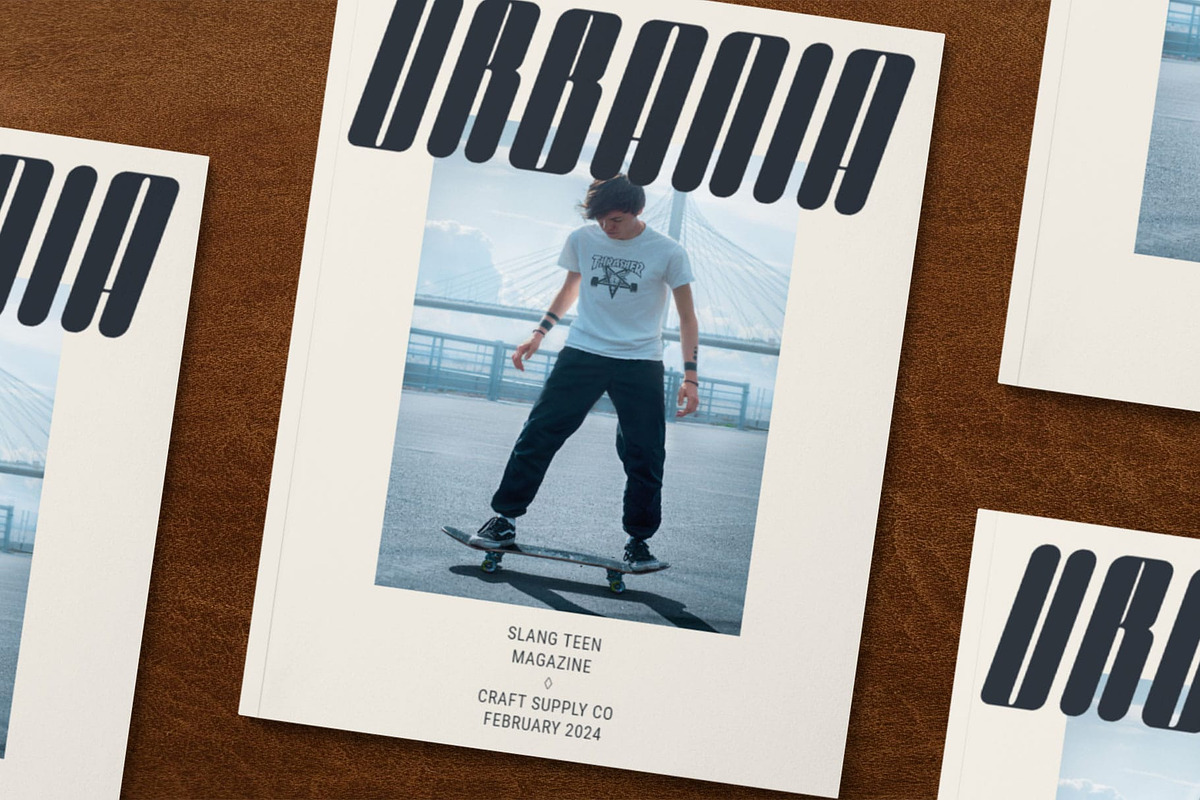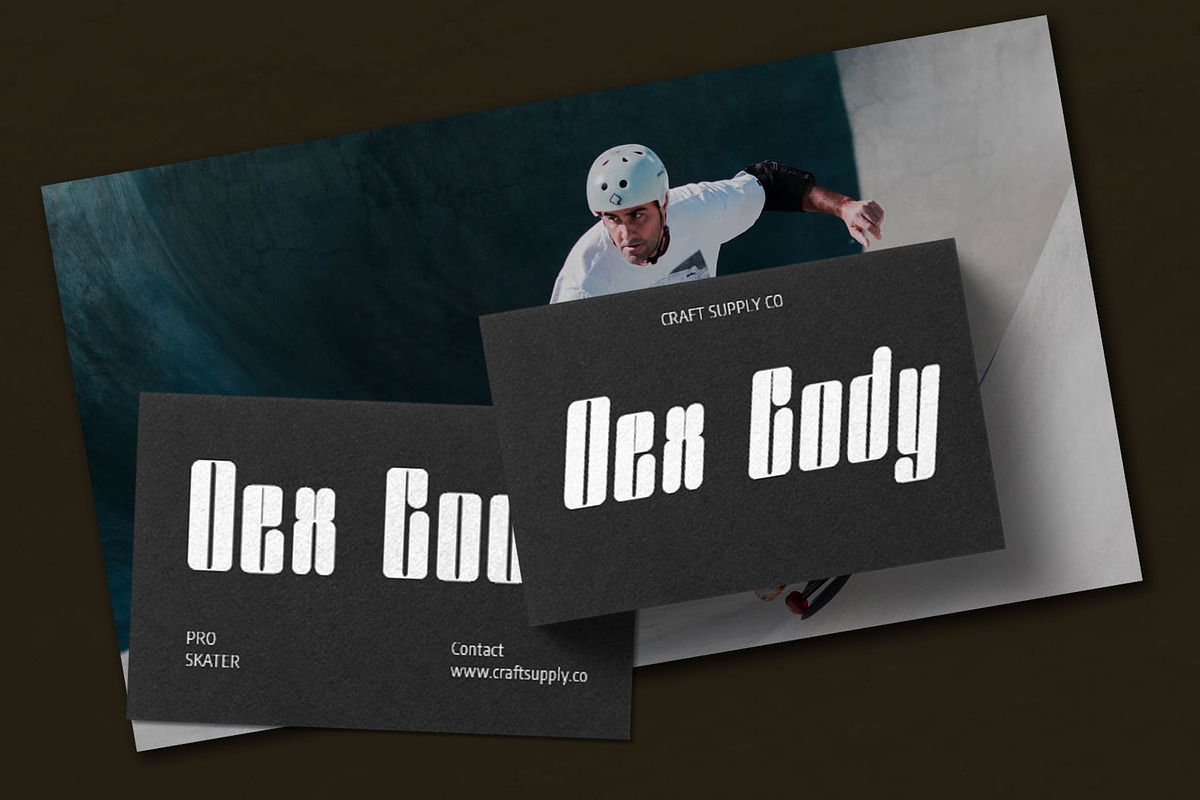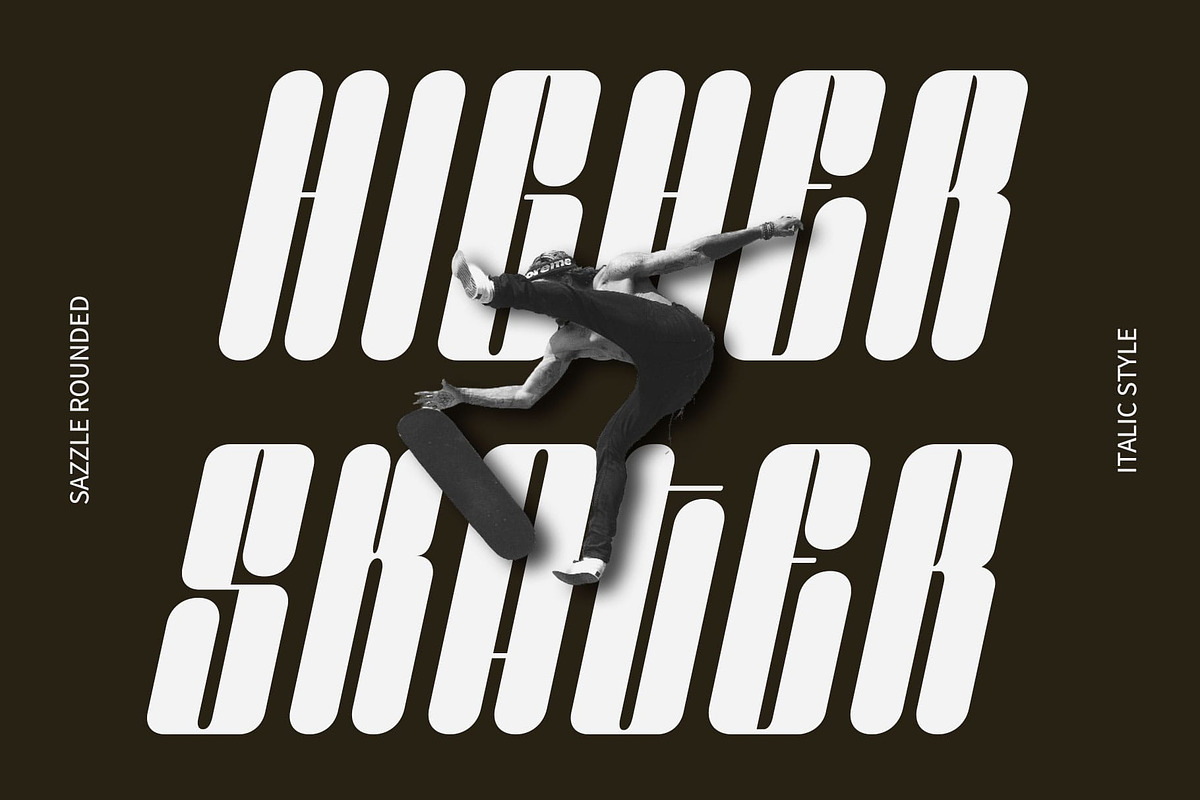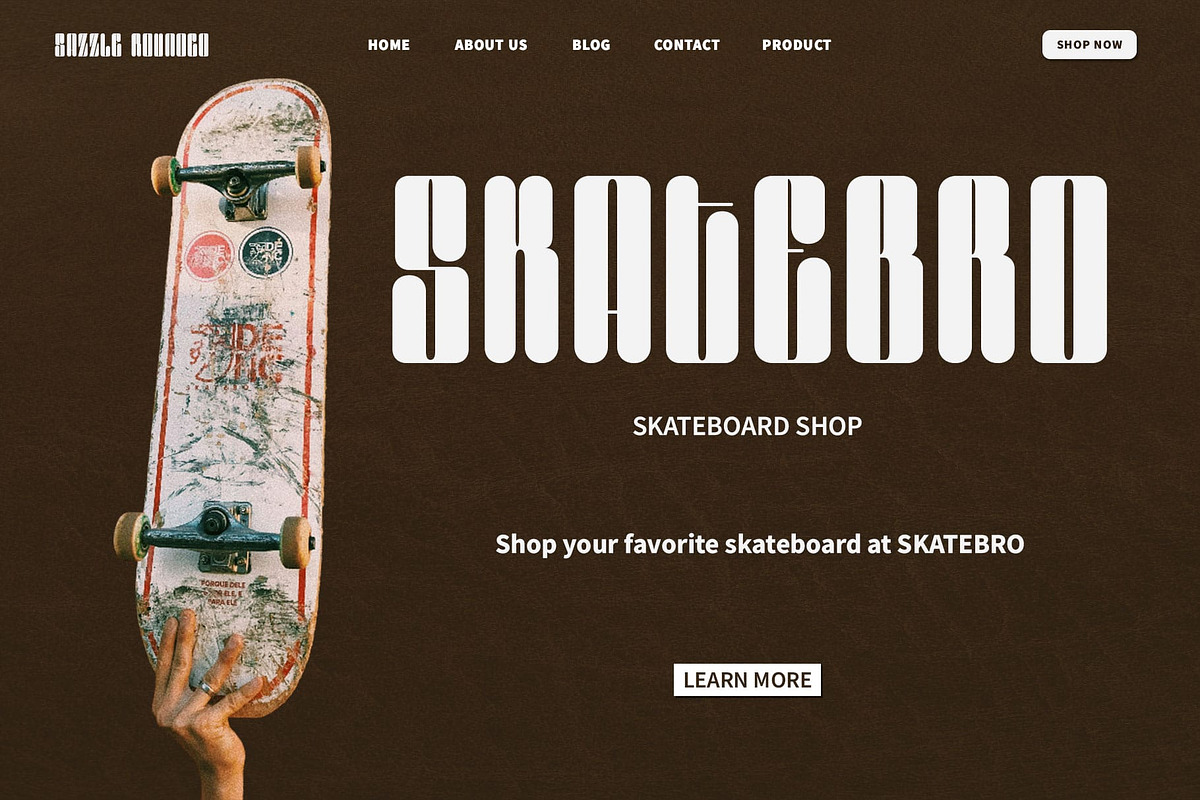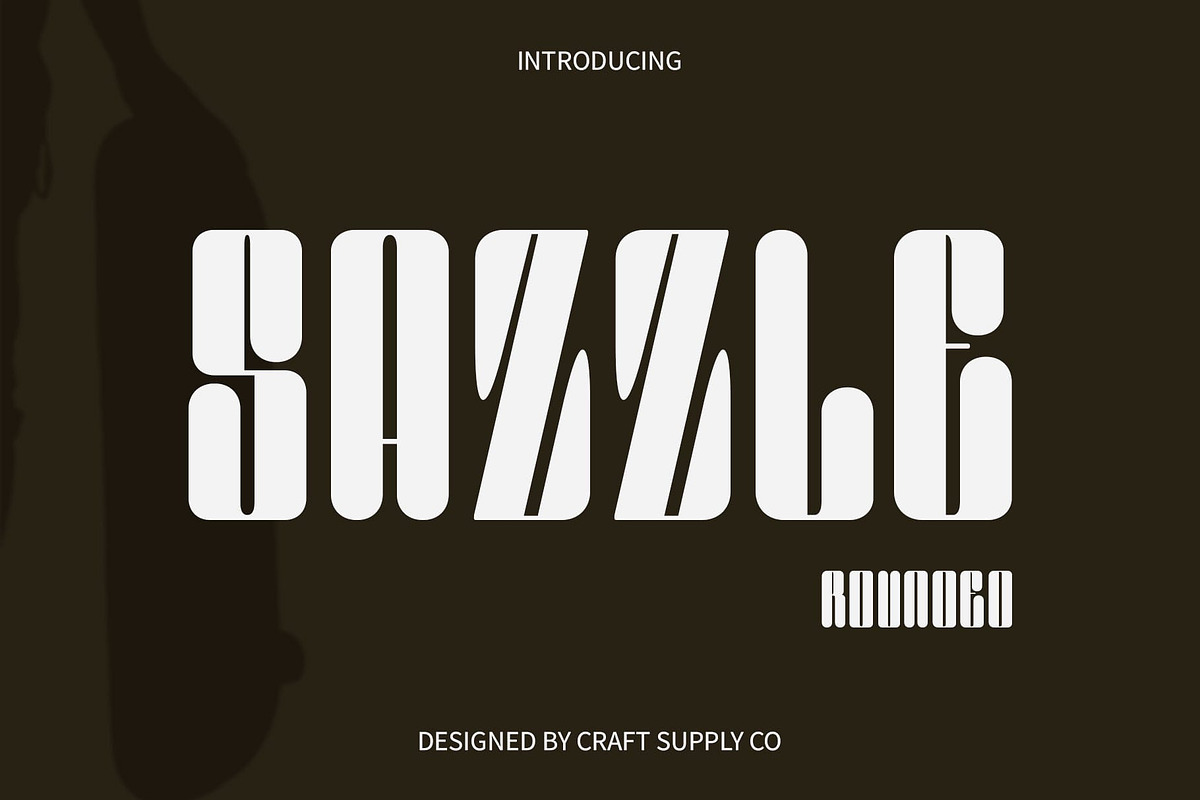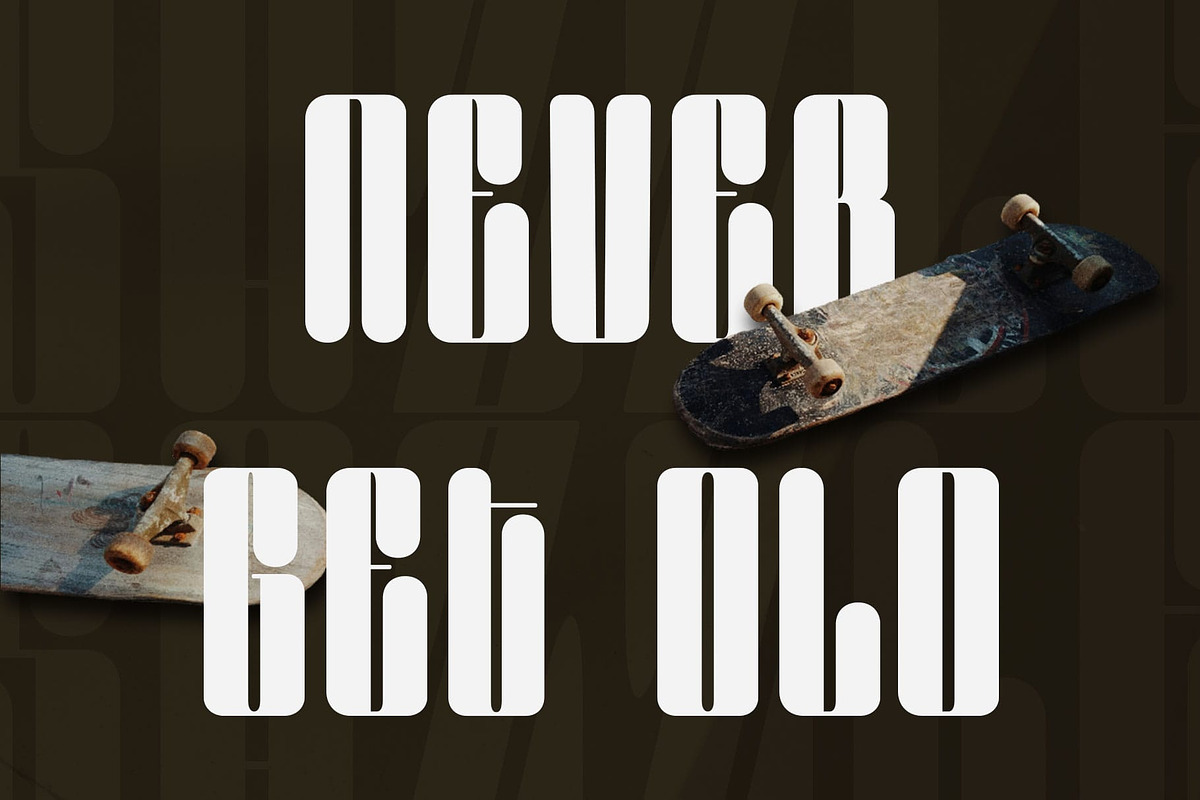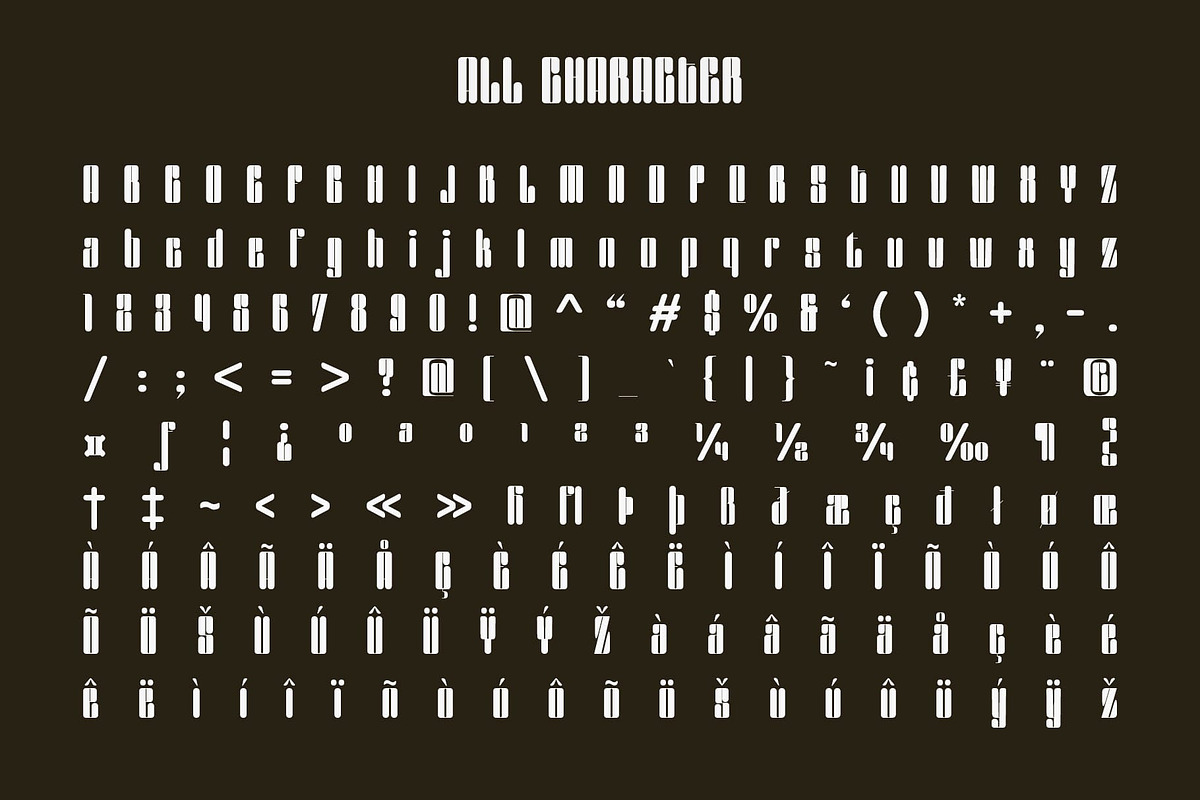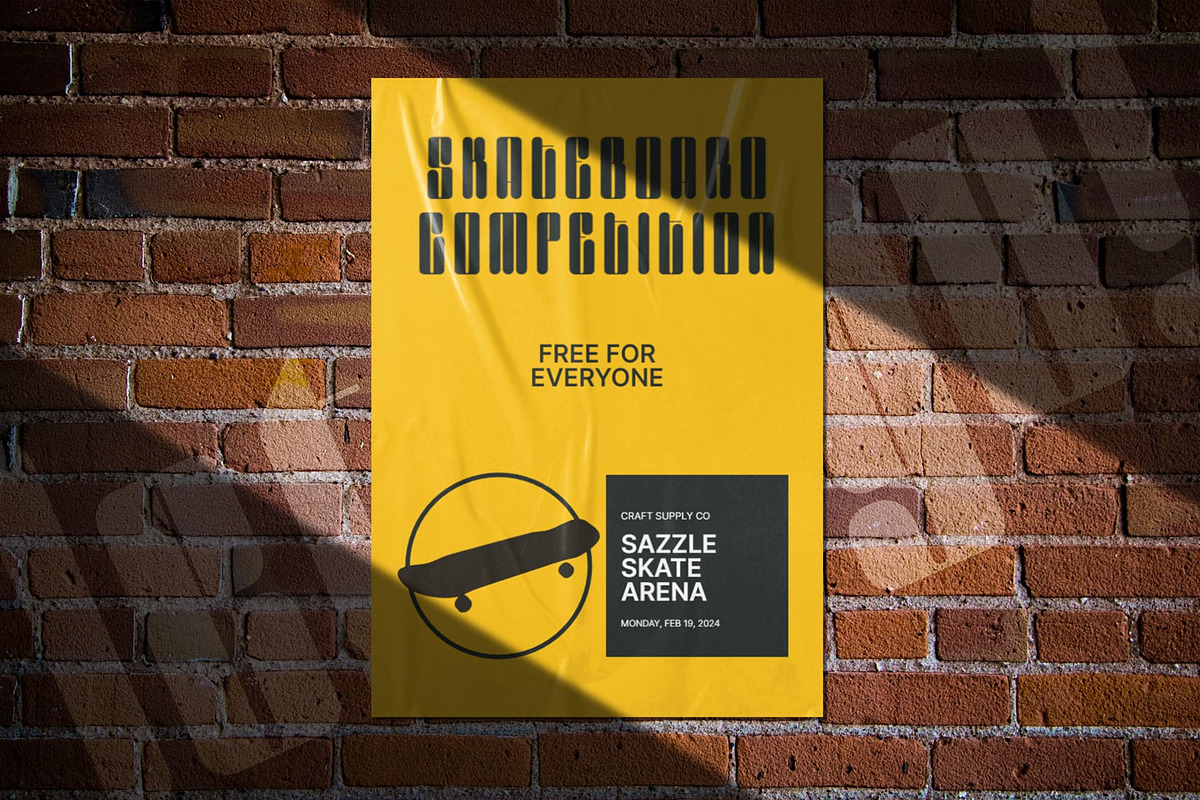
Sazzle Rounded
Sazzle Rounded: Embracing High Contrast
Sleek and Tight Design Sazzle Rounded presents a sleek and modern display style, characterized by its tight white space that ensures a clean and sophisticated aesthetic. Each letter is meticulously crafted to maximize legibility while maintaining a contemporary appeal.
Dynamic Contrast One of the standout features of This font is its dynamic contrast. The font achieves this through the juxtaposition of thick and thin strokes, creating a sense of movement and energy within each character. This contrast not only enhances readability but also adds visual interest and personality to the text.
Rounded Elegance With its rounded edges, This font exudes an understated elegance and warmth. The softness of the curves lends a friendly and approachable vibe to the font, making it suitable for a wide range of design contexts.
Versatile Application Thanks to its unique blend of sleek design and rounded edges, This font is incredibly versatile. It works seamlessly in various design applications, including branding, advertising, packaging, and web design. Whether used for headlines, logos, or body text, Sazzle Rounded makes a bold statement while maintaining readability and style.
Dynamic and Refined This font offers a compelling typographic solution with its sleek design, dynamic contrast, and rounded elegance. Its versatility and modern charm make it an excellent choice for designers seeking to create impactful and memorable visual experiences across different platforms and media.